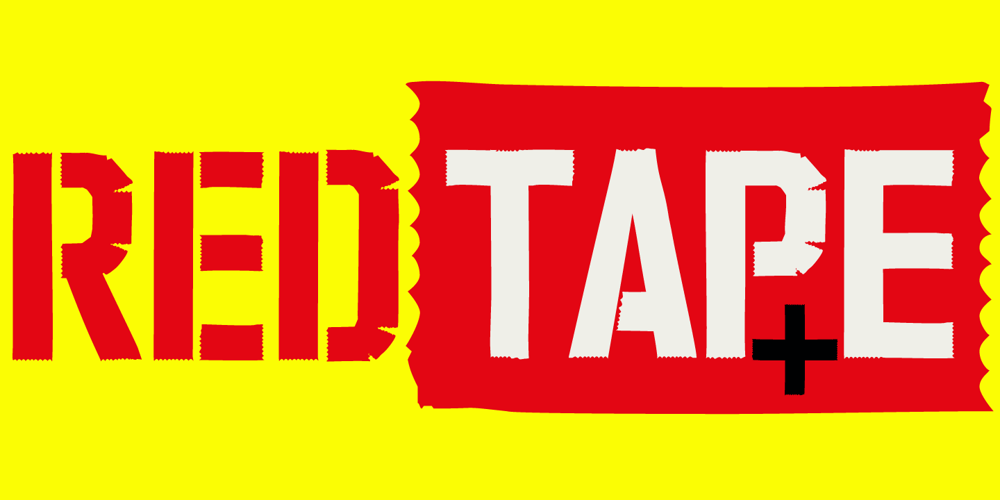
Red Tape Plus
Red Tape Plus font
Red Tape Plus Font Family was designed by Gert Wiescher and published by Wiescher Design. Red Tape Plus contains 3 styles and family package options. Red Tape Plus has two versions, one that looks »made with red tape« and the second version is »made with red tape« and an added »stencil look«! The stencil look is actually overdoing it a bit, but I found it to have an interesting personality, so what the hell! Sometimes one has do go too far. I am selling both for the price of one font anyway.